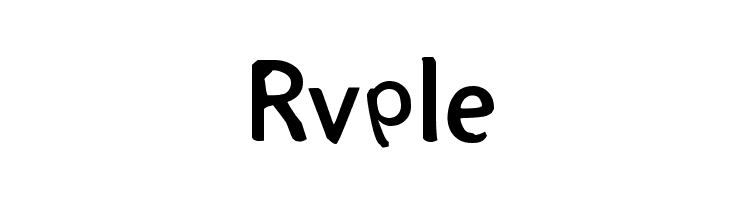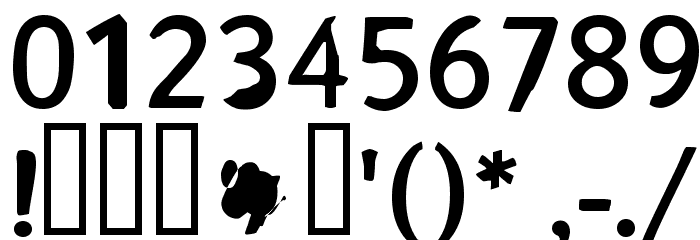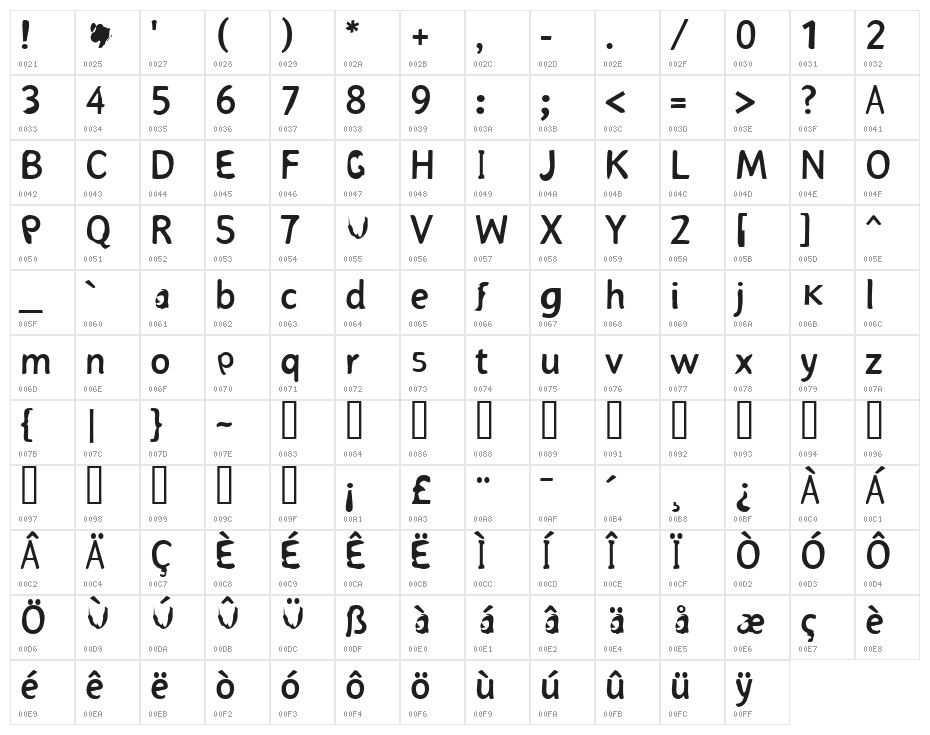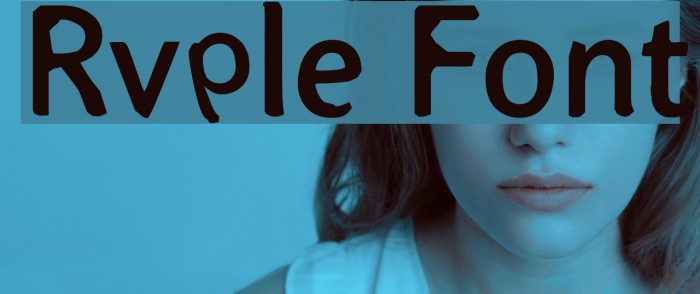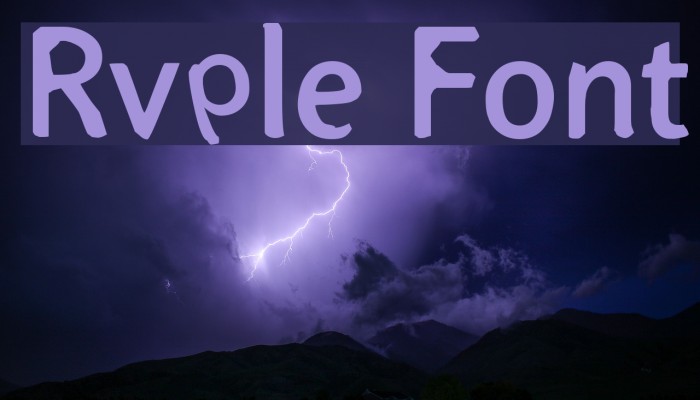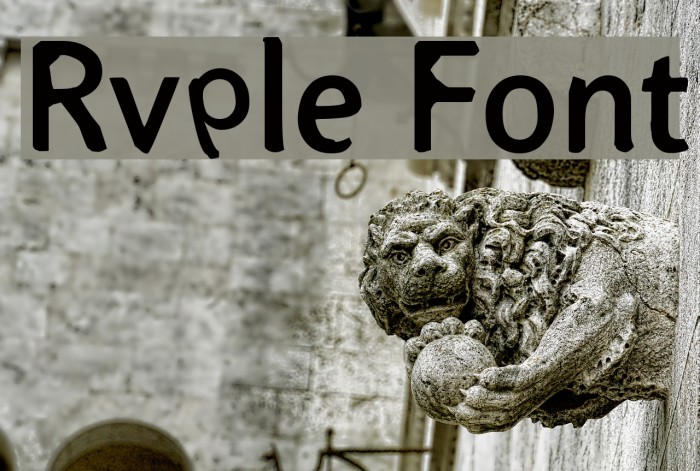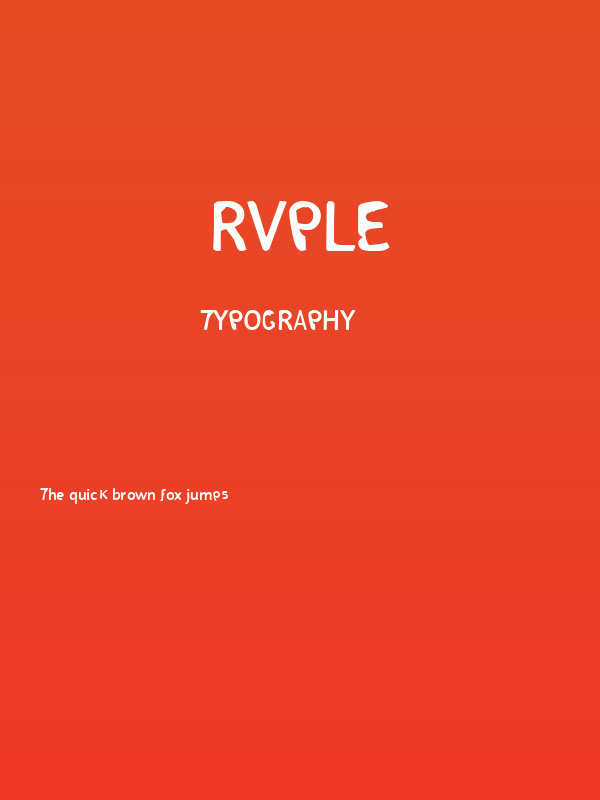
Rvple Font
Rvple Description
This font features a playful and quirky design with uneven strokes and varying thickness, giving it a hand-drawn appearance. The characters have a whimsical quality, with some letters incorporating unique decorative elements, such as the letter 'S' and 'T'. The numbers and special characters maintain this playful style, adding to the overall charm. The font's irregularities and bold strokes make it stand out, suitable for creative and informal projects.
| Overall Style | Playful, Quirky, Hand-drawn |
| Proposed Projects | Ideal for children's books, creative posters, playful branding, and informal invitations. |